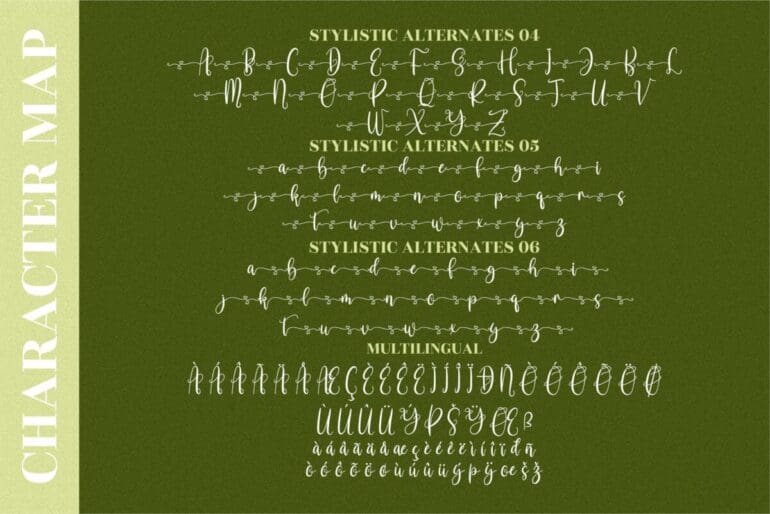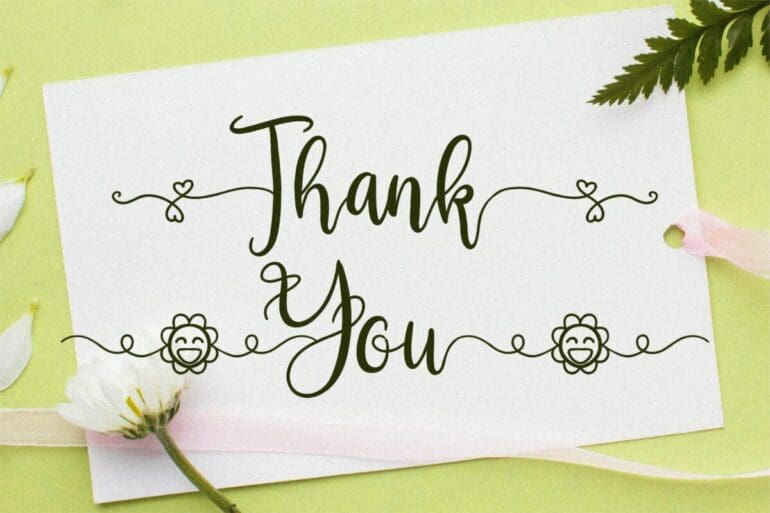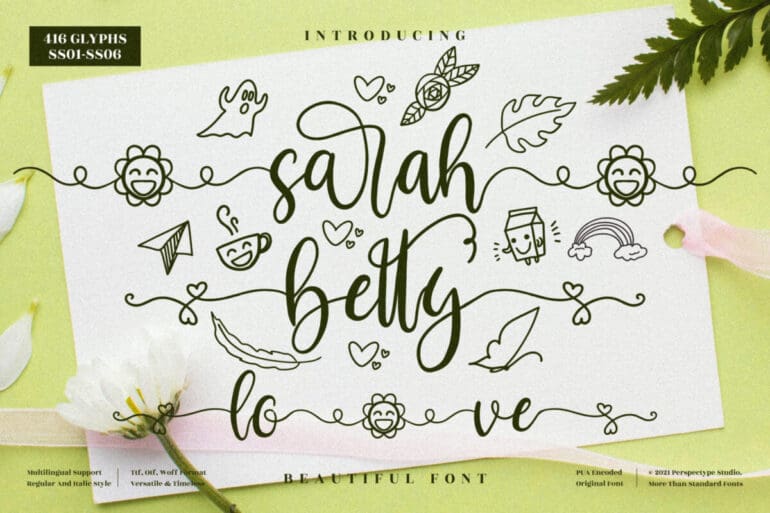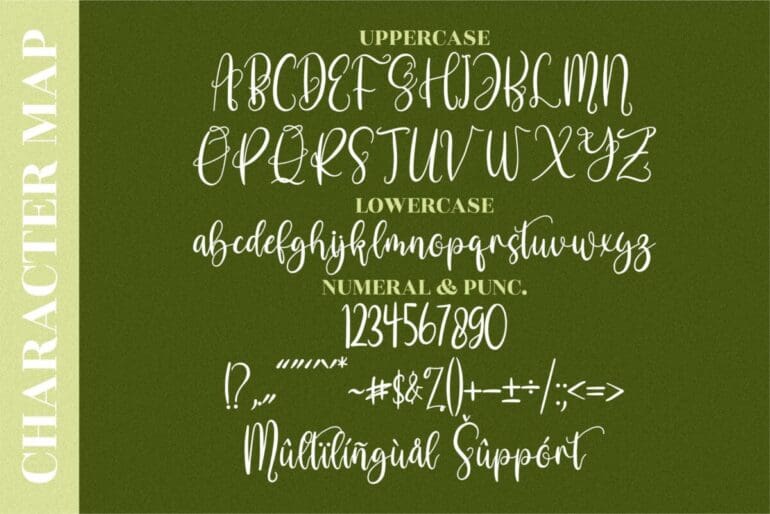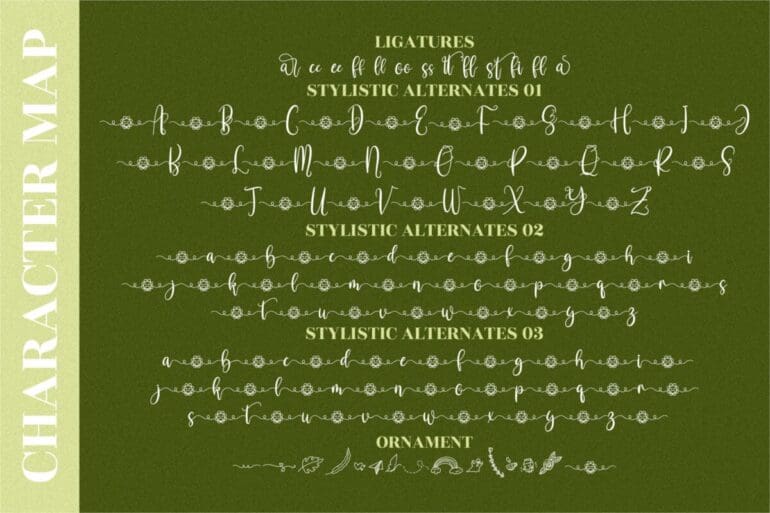
Sarah Betty Font
Sarah Betty is a beautiful light Calligraphy Font with a unique feel and a stunning impact. It will add a luxury spark to any design project that you wish to create! This font is PUA encoded which means you can access all of the amazing glyphs and ligatures with ease!